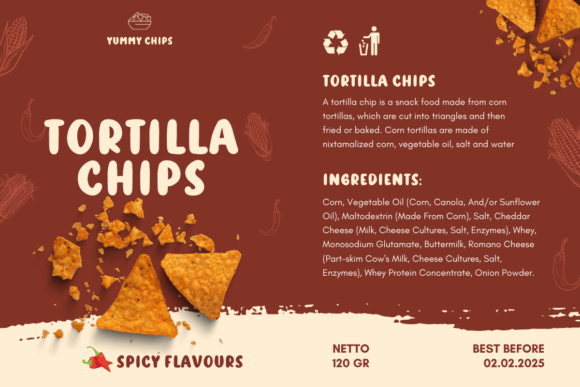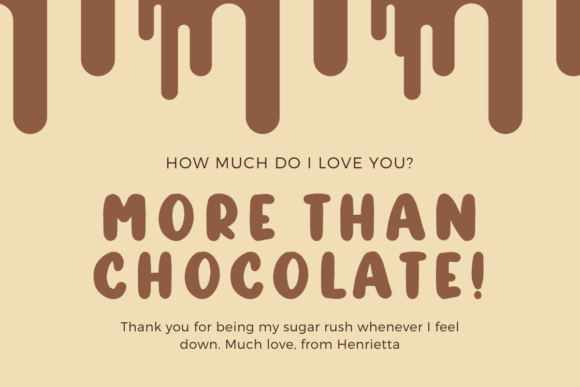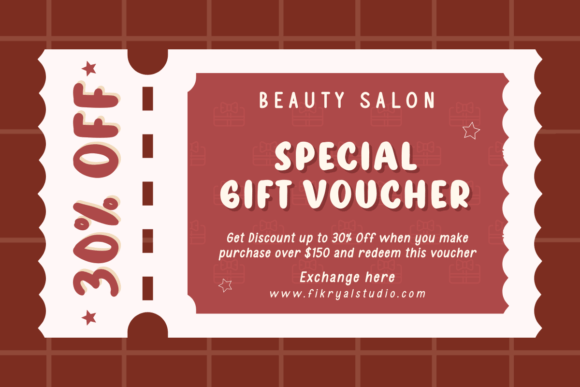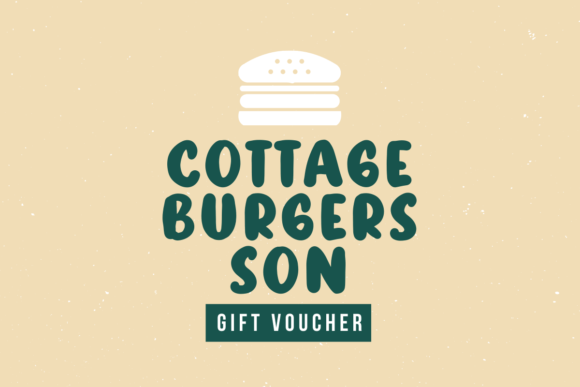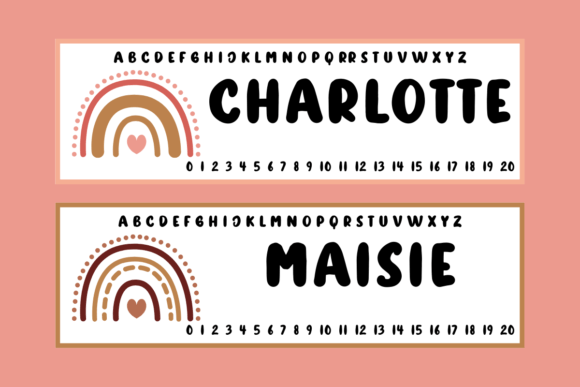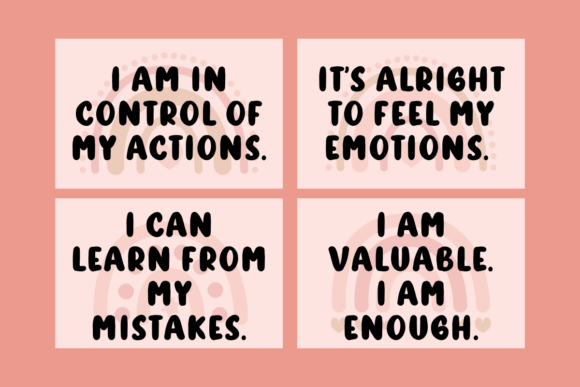
Introducing the Cutest Feeling Font: A Delightful Display for Creative Projects
Are you a designer or crafter looking for a font that can add a touch of whimsy and charm to your creative projects? Look no further than the Cutest Feeling Font! This lovely display font is perfect for a wide range of applications, from logo and branding to social media posts, advertisements, product packaging, and more.
What Makes Cutest Feeling Font So Special?
The Cutest Feeling Font is a unique and eye-catching display font that is sure to capture the attention of your audience. Its playful and charming design makes it perfect for projects that require a touch of personality and whimsy. Whether you’re working on a logo, title, or social media post, this font is sure to add a dash of fun and excitement.
One of the best things about the Cutest Feeling Font is its versatility. It’s suitable for a wide range of applications, including:
- Logo and branding: Create a memorable and eye-catching logo that reflects your brand’s personality.
- Title and headings: Add a touch of whimsy and charm to your titles and headings.
- Social media posts: Make your social media posts stand out with this unique and playful font.
- Advertisements: Grab the attention of your audience with this eye-catching font.
- Product packaging: Add a touch of personality to your product packaging.
- Product designs: Create unique and eye-catching product designs.
- Label and photography: Add a touch of whimsy and charm to your labels and photography.
- Special events: Create memorable and eye-catching event materials.
- Web design: Add a touch of personality to your website with this unique font.
Why Choose Cutest Feeling Font?
- Unique and eye-catching design: This font is sure to capture the attention of your audience.
- Playful and charming: Add a touch of whimsy and charm to your projects.
- Versatile: Suitable for a wide range of applications.
Here are a few tips and tricks to help you get the most out of the Cutest Feeling Font:
- Experiment with different sizes and colors: Find the perfect combination to make your project stand out.
- Pair with other fonts: Create a unique and eye-catching combination.
- Use for headlines and titles: Add a touch of whimsy and charm to your headlines and titles.
The Cutest Feeling Font is a delightful display font that is perfect for designers and crafters looking to add a touch of whimsy and charm to their creative projects. With its unique and eye-catching design, playful and charming personality, and versatility, this font is sure to become a favorite in your font library. So why wait? Download the Cutest Feeling Font today and start creating!